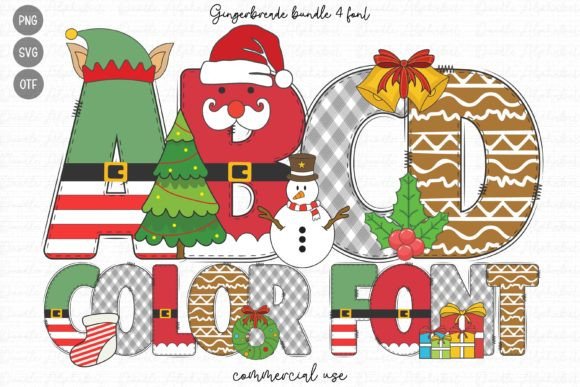
Introducing the Gingerbread Bundle Font, the best font for all your Christmas word needs! Created by the talented Phongsakon Phonkhammak, this colorful font is the ultimate choice to elevate your holiday designs and make them truly stand out.
With its cute and festive style, Gingerbread will instantly bring a touch of joy and warmth to your Christmas-themed projects. Imagine the enchanting effect it will have on your cards, crafts, shirts, and more! This font is a must-have for anyone looking to infuse their creations with the spirit of the season.
What sets Gingerbread apart is its versatility. The black version of this font is compatible with popular cutting machines like Cricut Design Space. So, if you're into DIY crafts and love adding a personal touch to your creations, this font is a game-changer!
But that's not all. The color version of Gingerbread is a true gem for designers using programs like PhotoShop, Illustrator, Silhouette, and Inkscape. Its vibrant hues will bring your digital artwork to life, making it perfect for creating stunning graphics and illustrations.